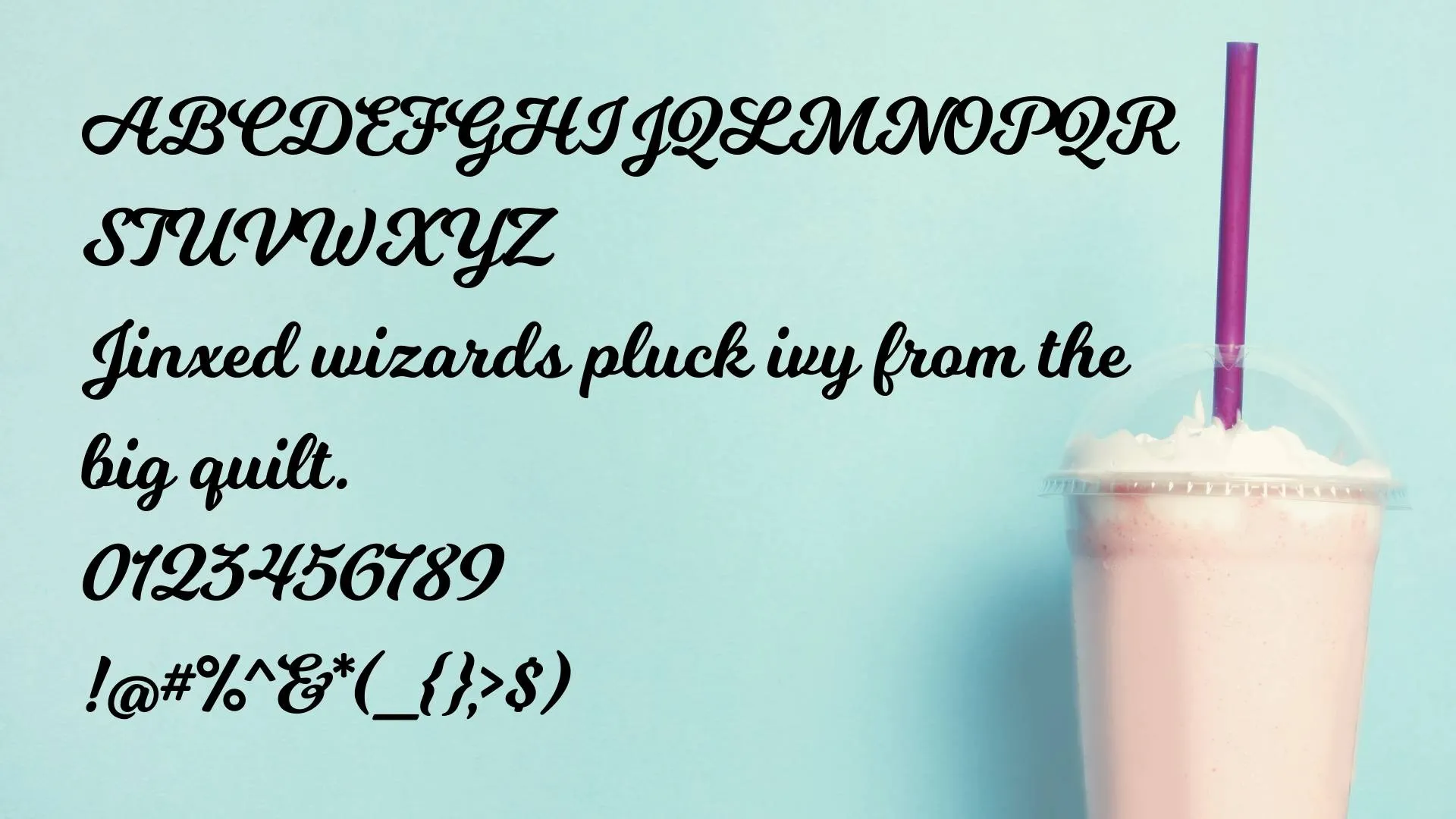
Milkshake font is a script handwritten font that has clean and medium bold texture. This amazing typeface was created by Laura Worthington. We’re speaking in regards to the milkshake font that looks like cottage font includes a variety of extras.
This font has 669 Glyphs, 10 ligatures, 87 swashes, and many characters. This designer design many fonts but this font is very famous by the users.
Milkshake Font Info
Name | Milkshake Font |
Designer | Laura Worthington |
Style | Script |